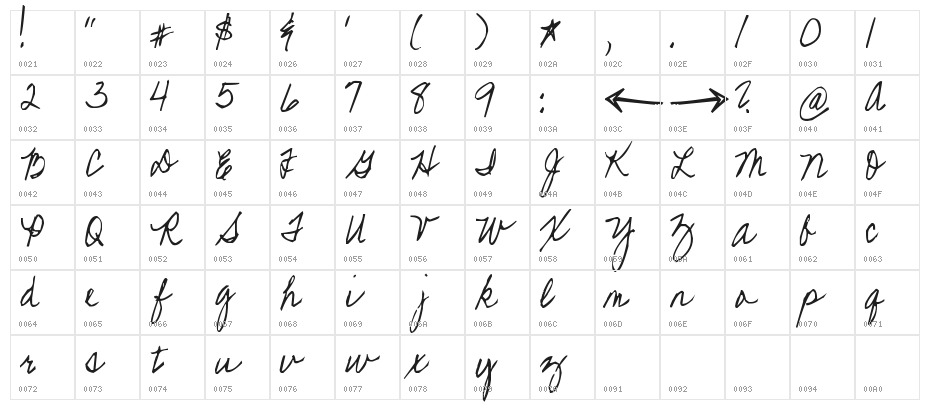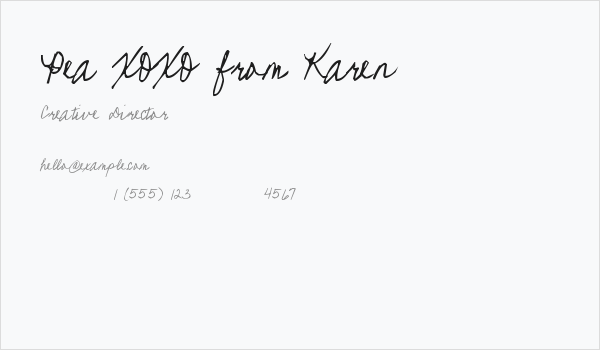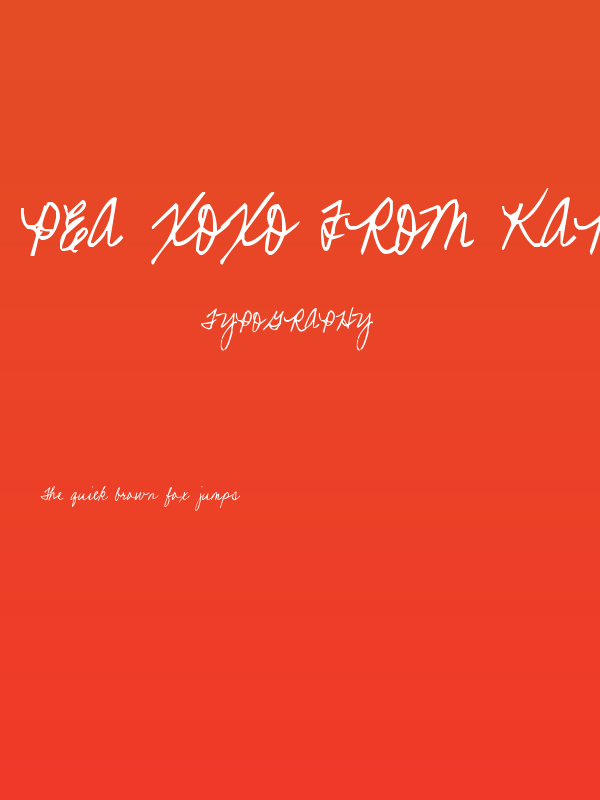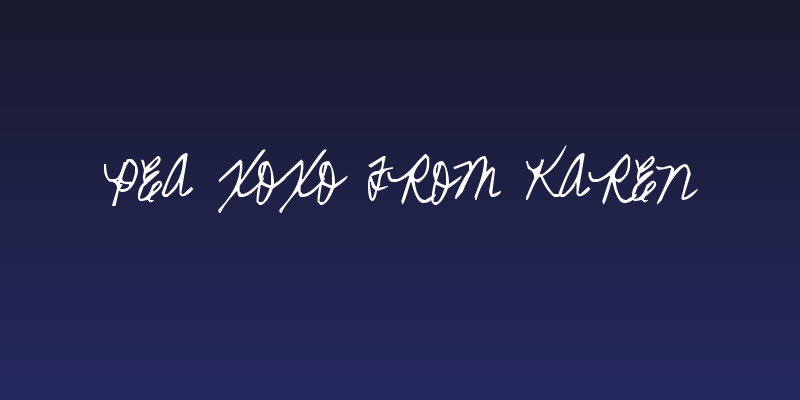
Pea XOXO from Karen Font
Pea XOXO from Karen Description
This font features a playful and casual handwritten style, characterized by its fluid and connected letterforms. The uppercase letters exhibit a consistent slant and are slightly larger than the lowercase, which maintain a smooth flow. The numerals are clear and distinct, matching the overall informal aesthetic. Special characters are integrated seamlessly, enhancing the font's versatility. The strokes are moderately thick, providing a balanced contrast that ensures readability while maintaining a personal touch. This font exudes a friendly and approachable vibe, making it ideal for projects that require a personal or informal tone.
| Use Case | Headlines, Informal text, Personal notes |
| Proposed Projects | Ideal for personal letters, greeting cards, invitations, and informal branding. |